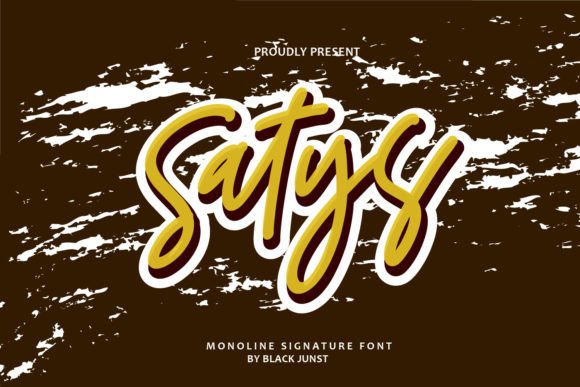
Immerse yourself in the world of Satys, an extraordinary script font family that exudes creativity and panache. Its unique handwritten curves possess an allure that captivates, drawing you into a realm of visual intrigue. Each letter, carefully crafted with originality and modernity, embodies the essence of artistic expression, guaranteed to elevate your design projects to new heights of sophistication.
With Satys, you'll embark on a journey of boundless creativity, where your imagination knows no limits. Whether you're a seasoned designer or just starting out, Satys empowers you to leave a lasting impression. Dive into a world of possibility and let the allure of Satys ignite your passion for design.
Beyond its captivating aesthetics, Satys is incredibly versatile, seamlessly adapting to a myriad of design endeavors. Envision your brand's logo adorned with the elegance of Satys, commanding attention with its distinctive flair. Craft social media campaigns that captivate your audience, leaving them in awe of your visual prowess. Design magazine covers that demand attention on newsstands, their headlines�动ing forth with the vibrance of Satys. Elevate brochures with a touch of sophistication, their pages adorned with Satys' enchanting curves. Even ordinary t-shirts will transform into canvases of self-expression, showcasing your unique style with Satys as their centerpiece.
Satys’ extensive character set, encompassing uppercase and lowercase letters, numbers, and an array of punctuation marks, ensures seamless integration into your design projects. Its versatility knows no bounds, accommodating various applications and design styles. We've meticulously crafted Satys to be user-friendly, ensuring a smooth and enjoyable experience for designers of all levels.
Indulge in the extraordinary possibilities that Satys presents. Its captivating allure, versatility, and ease of use make it a must-have for any designer seeking to leave a lasting impression. Embark on a creative journey with Satys and unlock the full potential of your design vision.